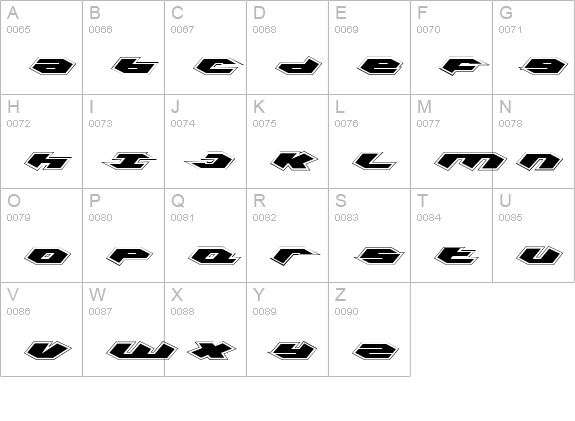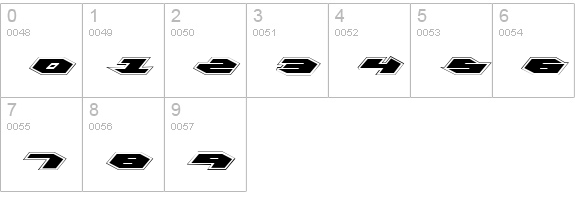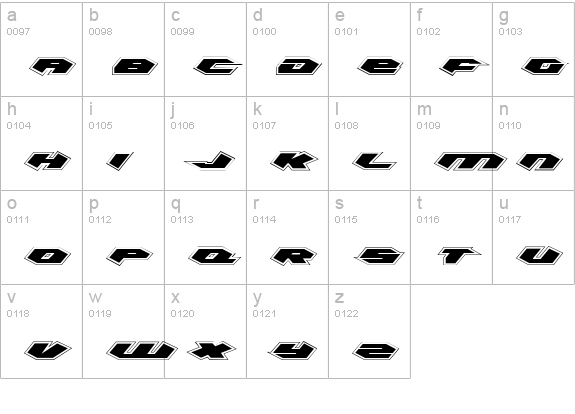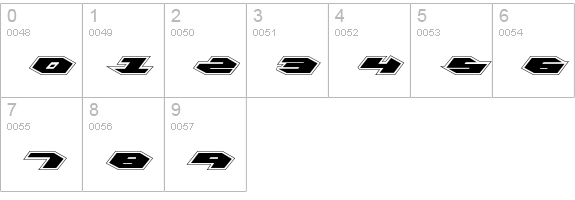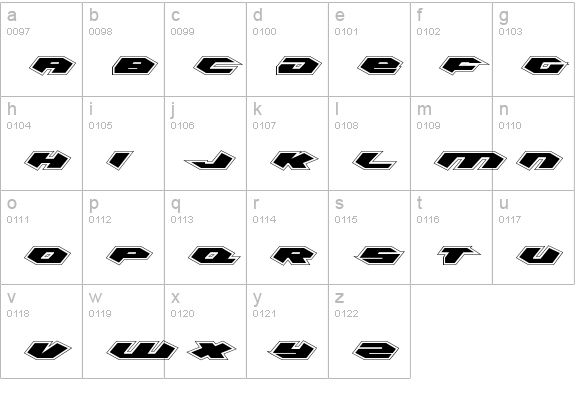
Kubrick Pro is a stunning and versatile font that exudes sophistication and modernity. Its sleek and elegant design makes it perfect for a wide range of design projects, from branding to editorial design. With its clean lines and sharp angles, Kubrick Pro commands attention and adds a touch of refinement to any layout. What sets Kubrick Pro apart is not just its aesthetic appeal, but also its availability - for free! That's right, Kubrick Pro is freely available to download at FontsMarket.com, making it accessible to designers of all levels. Whether you're working on a professional project or simply looking to enhance your personal designs, Kubrick Pro is a fantastic choice that won't break the bank. With its timeless design and accessibility, Kubrick Pro is sure to become a staple in your font collection. Download it today and elevate your designs with this exceptional typeface.